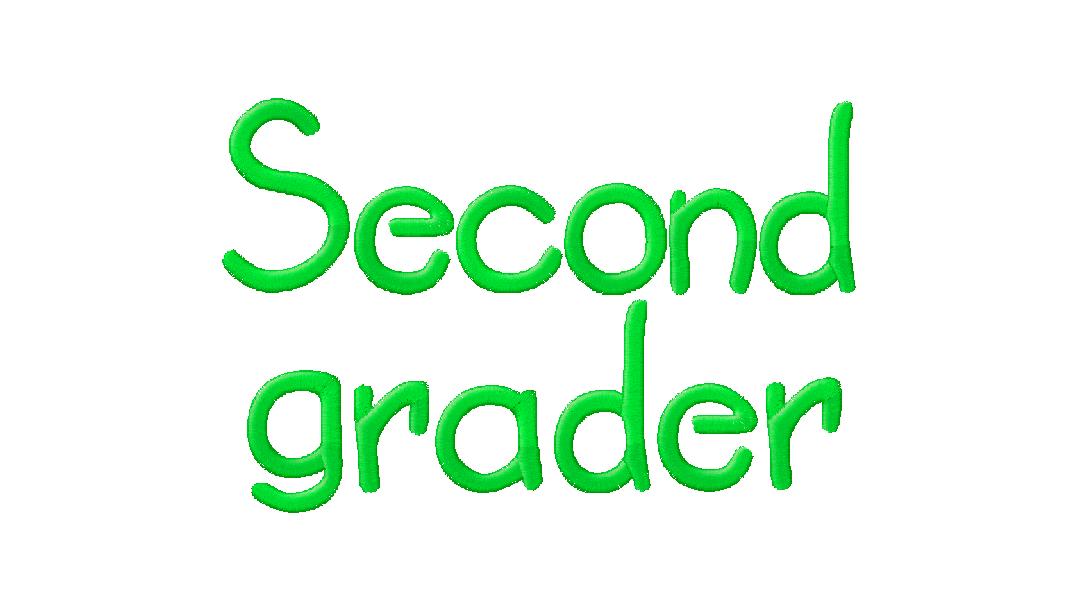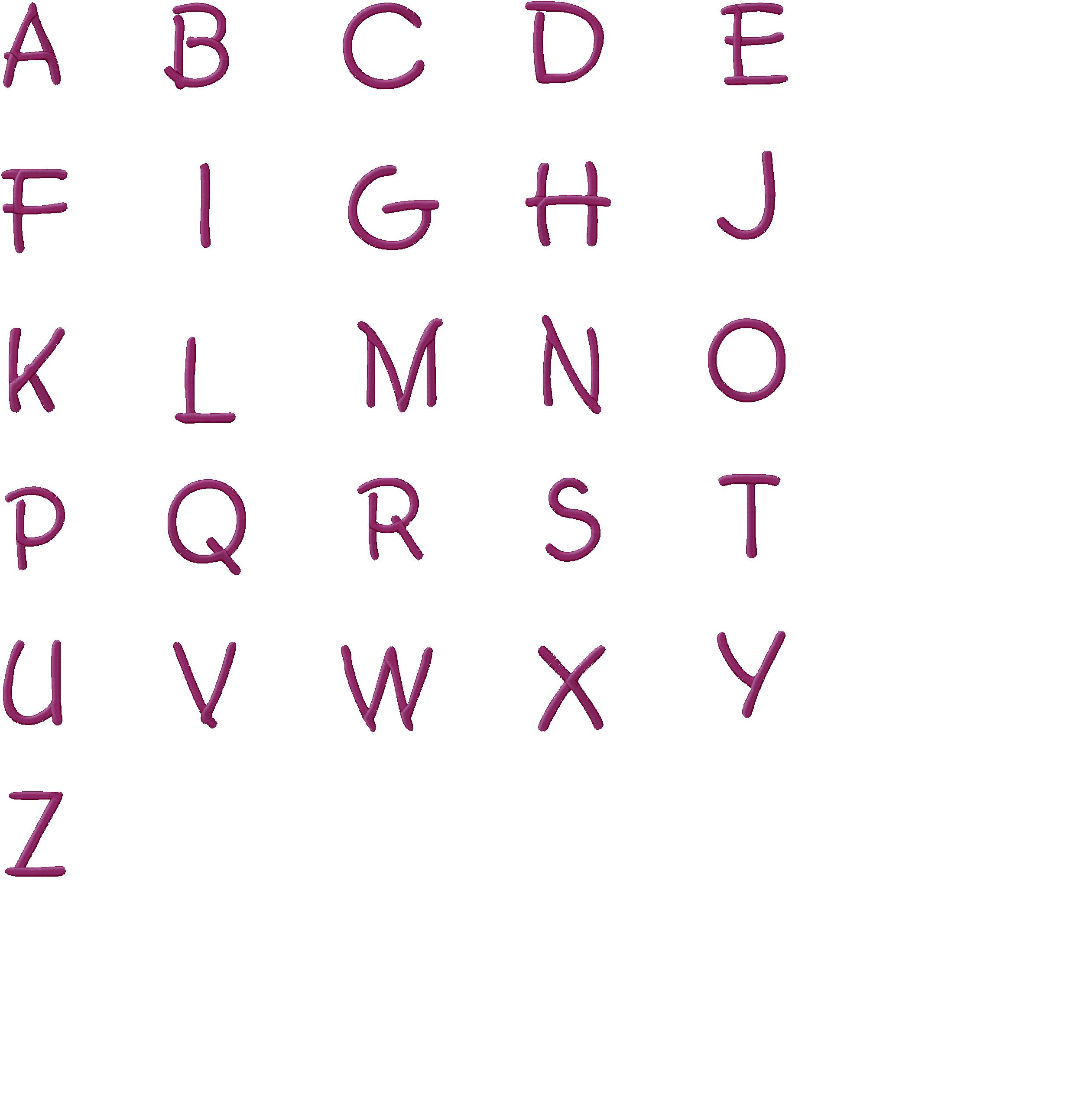
Thanks for Joining us on this beautiful Thursday. Once again today, like always, we are bringing you a new Free Monogram machine embroidery font set. This font is titled Second Grader however is perfect for all ages! This set is both cute and cool and is done in a Satin Stitch. Not only for Kids, this set looks great on almost anything! Only free for today so get it now below! We hope you find this free font useful for your own Monogram service and are pleased with the level of quality put into a free product. Please send us your creations to be featured at FreeEmbroideryDesignFiles.com Also, if you like this free design share it on Facebook by clicking the Like button below. We appreciate your support.